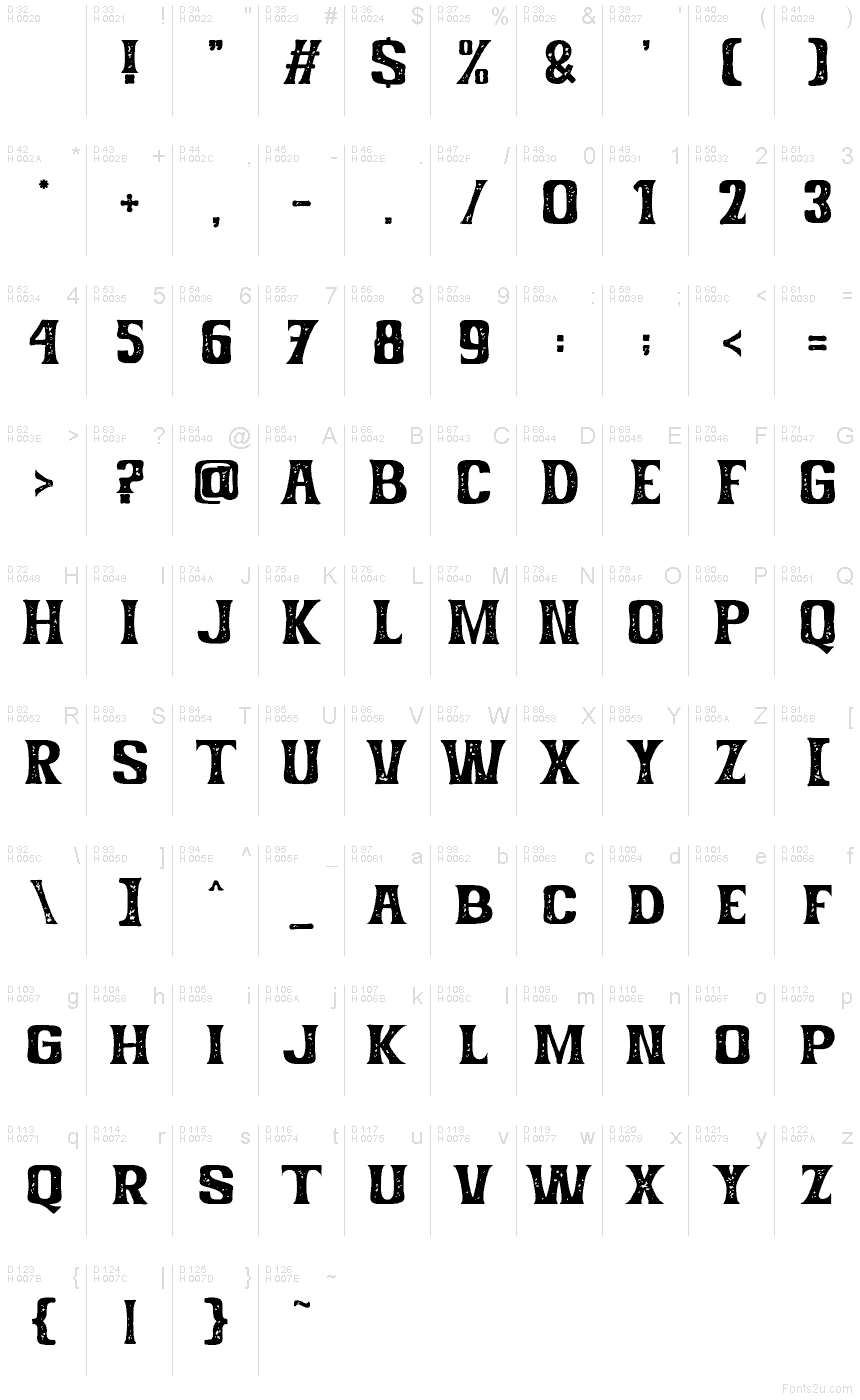
Hold Hand Rough
Hold Hand Rough font by PutraCetol Studio is a free eroded display typeface that wears its grit proudly. Thick, vintage-style letterforms come scuffed with ink-chipped pockmarks and woodblock echoes, giving headlines a worn-in swagger. Part of the Hold Hand family, its chunky curves and battered texture read as tactile and handmade, like paint dragged across plywood.
Using Hold Hand Rough, you get instant character for gig posters, craft beer cans, tattoo-inspired labels, biker or garage branding, vintage badges, and bold social graphics. The generous weight keeps clarity even with the roughness, so you can go big and tighten spacing for punch. Pair this free font with a simple, neutral sans to let the texture lead.